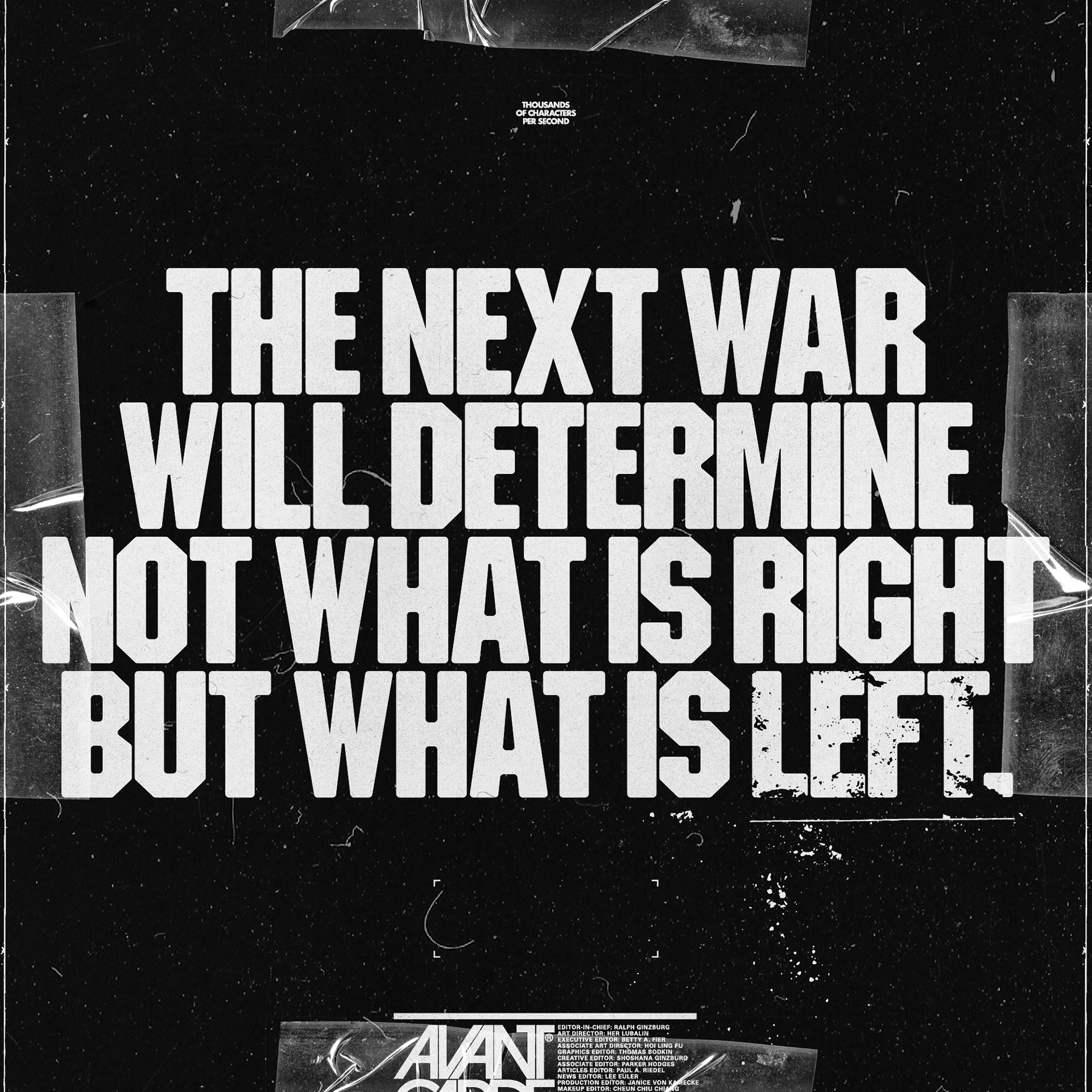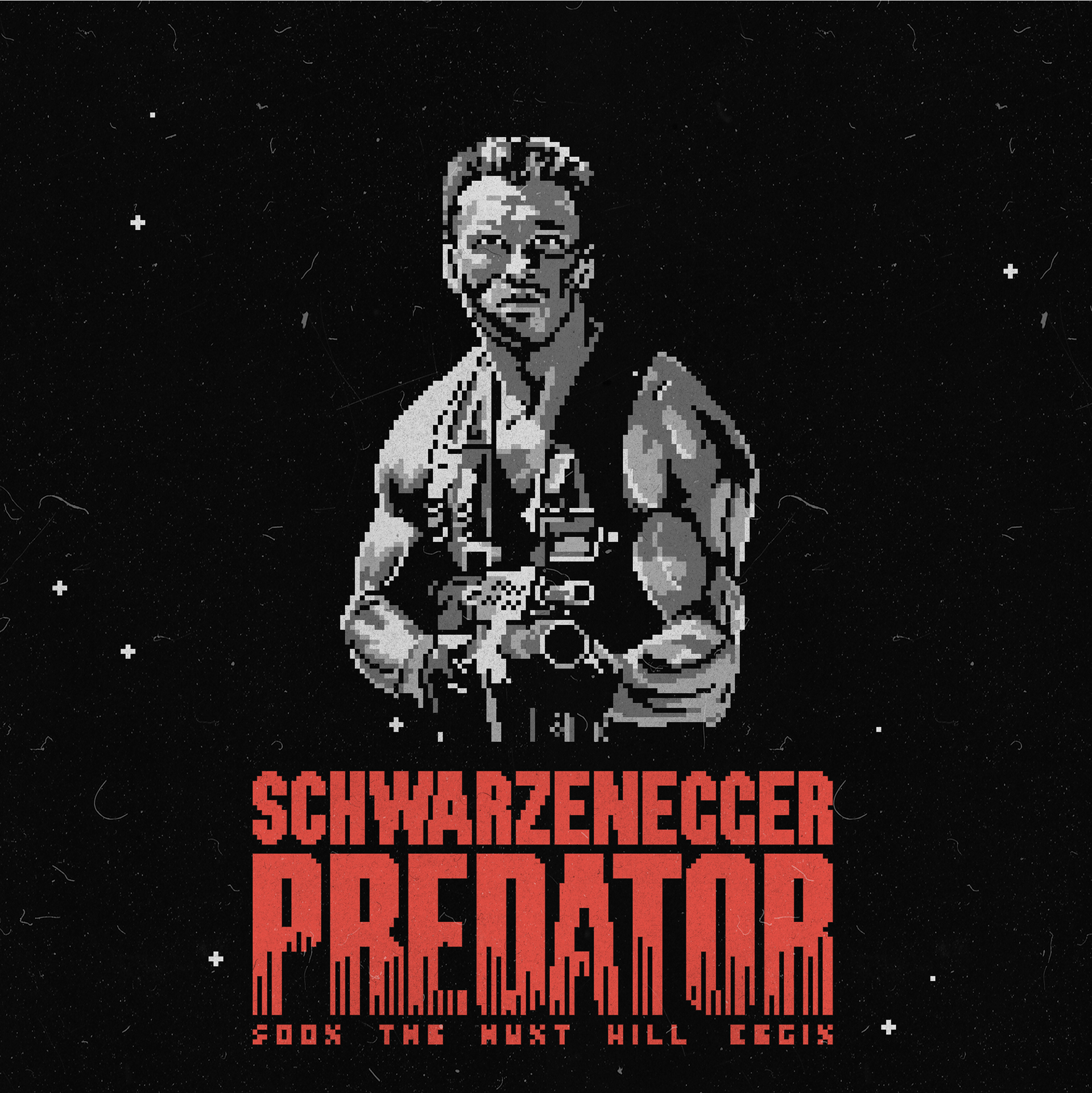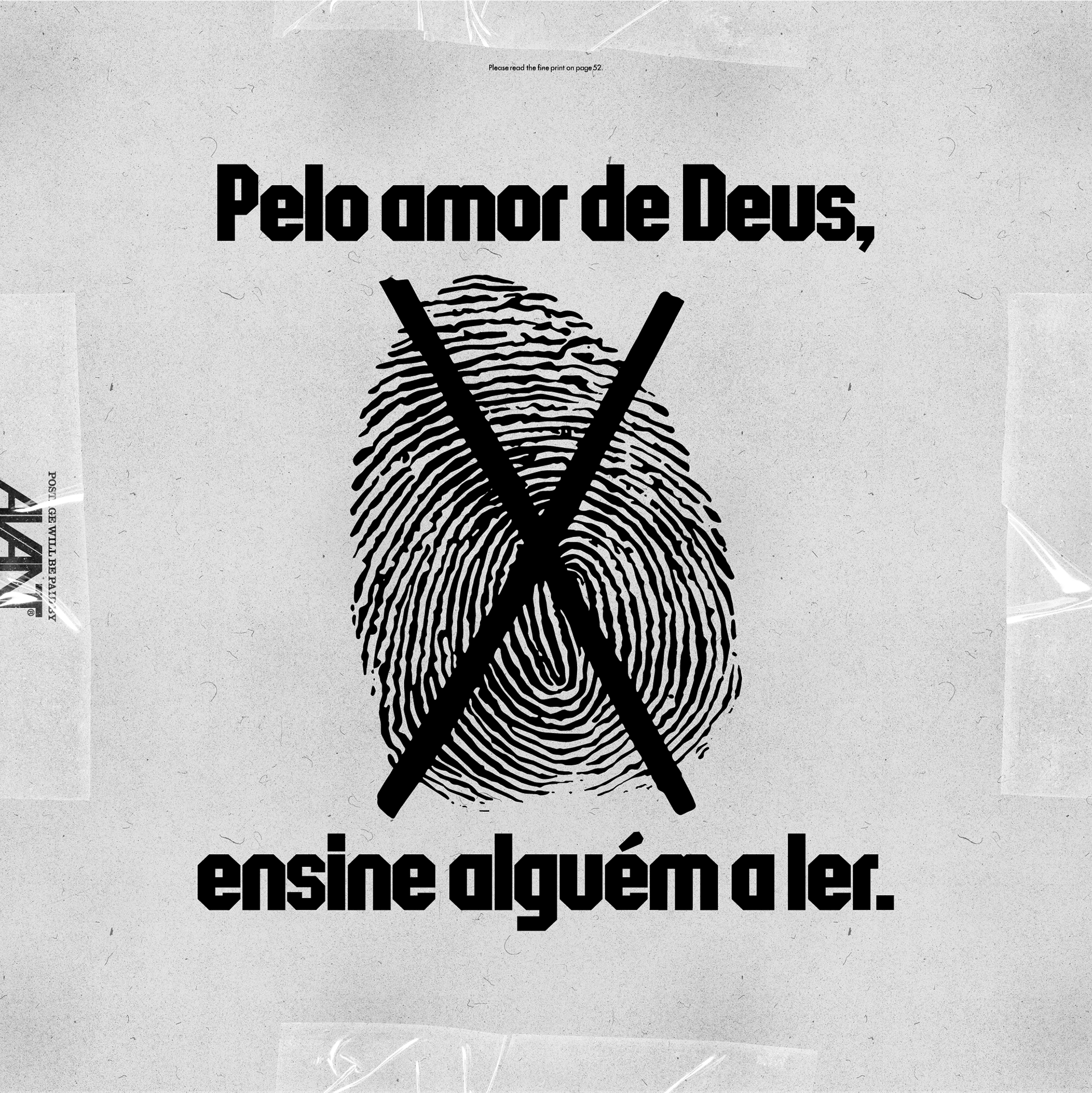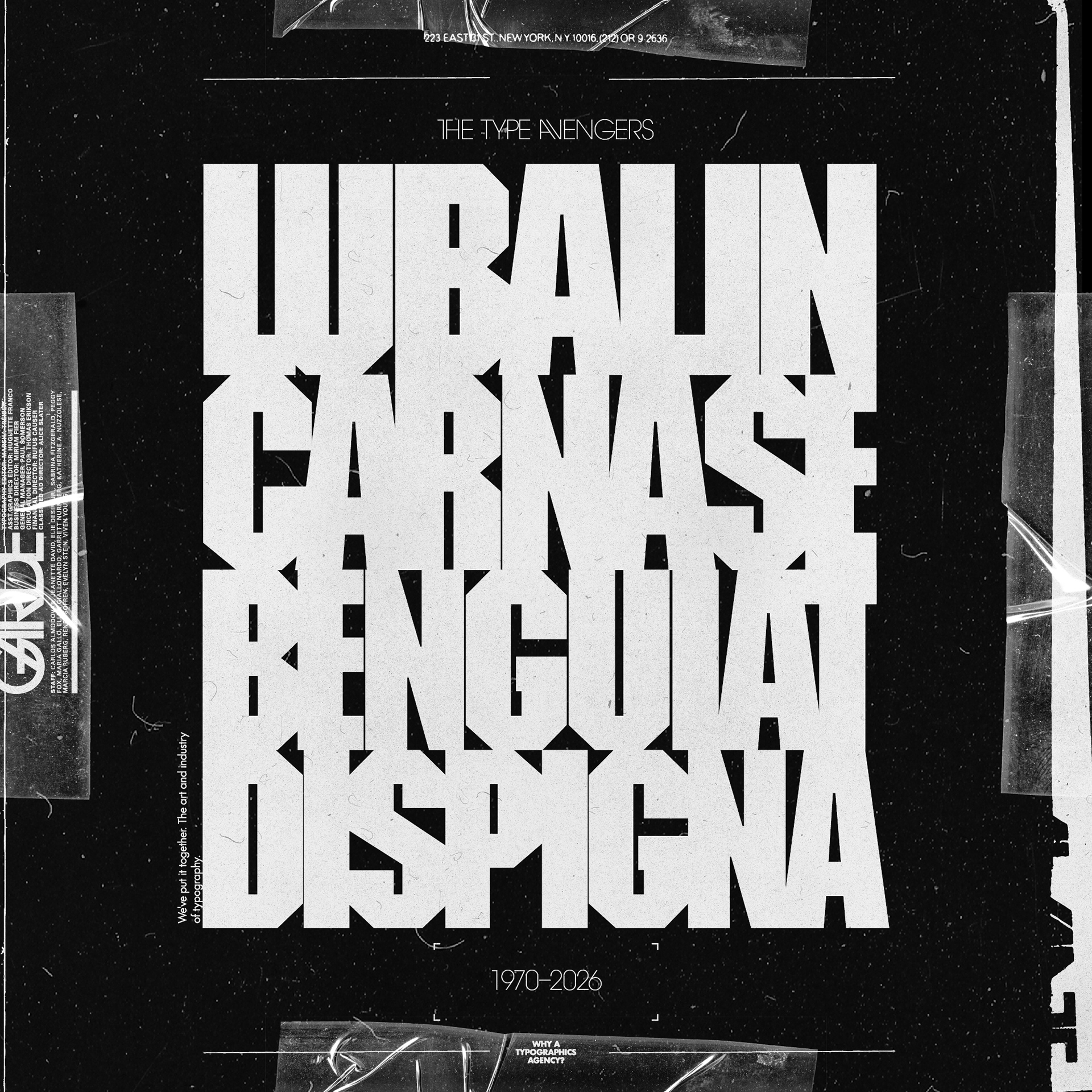
Designed in 1970 by Ronné Bonder and Tom Carnase, ITC Machine was one the first typefaces issued by the International Typeface Corporation, a true treasure of the phototypesetting era, as highlighted by ITC's own mastermind Herb Lubalin in his pioneering graphic work.
Its strong geometric objective letterforms became synonymous with BOLD statements across creative fields, from sports advertising to post-industrial corporate branding and even some ventures in music artwork.
Being one of the first typefaces converted to digital form, it inherited a few limitations in the technology turn in the late 1980s, as were most of the ITC catalog. Historical research shows various different approaches to its use in the form of alternate characters for titles and a lowercase set not present in its first release.
NEW MACHINE brings back the glory of the analog era, reviewing letterspacing and adding the extra characters inspired by the work of the great Lubalin and his peers. 5 new weights included for extra versatility.
Highly recommended for usage on alrge size displays, lettering and logo designs and all-around analog celebrations.